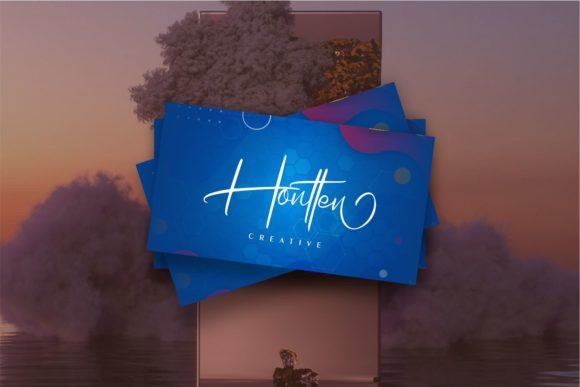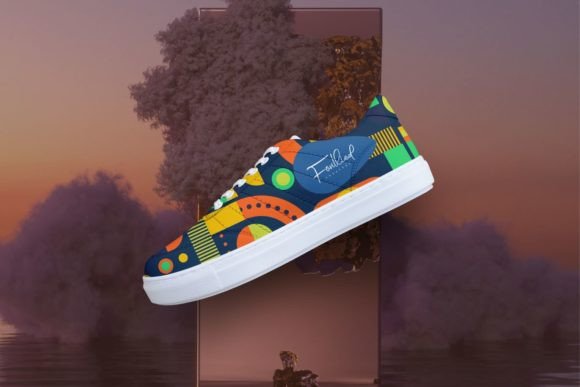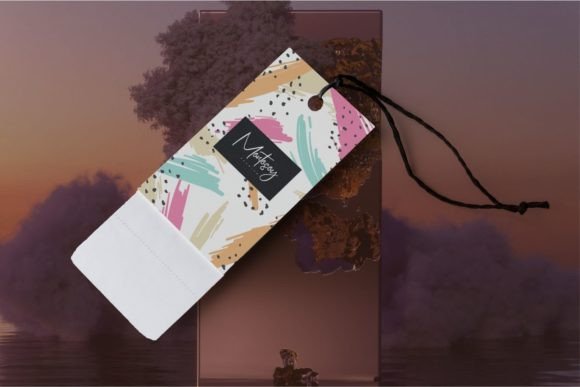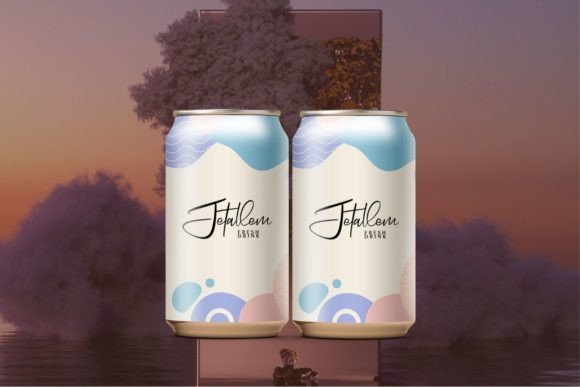
A Sophisticated Calligraphy Script for Creative Projects
Bettnode Font is an exquisite modern script font that showcases a sophisticated calligraphy style. With its elegant and graceful letterforms, this font is perfect for various design projects, including invitations, greeting cards, branding materials, business cards, quotes, posters, and more. Bettnode Font adds luxury and refinement to your designs.
Perfect for Invitations and Special Occasions
When it comes to invitations, Bettnode Font adds a touch of elegance and refinement. Its flowing and intricate strokes create a sense of luxury and sophistication, making your invitations truly captivating. Whether you’re designing wedding invitations, party invites, or event announcements, Bettnode will elevate the overall look and feel of your designs.
Ideal for Greeting Cards
Greeting cards designed with Bettnode Font become visually stunning works of art. The font’s calligraphic style adds beauty and charm to your heartfelt messages. Whether it’s a birthday card, thank-you note, or special occasion card, Bettnode adds a touch of elegance and grace, making your greetings even more memorable.
Perfect for Branding and Business Materials
Branding materials and business cards benefit from Bettnode’s modern and stylish appearance. The font’s unique letterforms and intricate details create a distinctive and eye-catching visual identity. Whether you’re designing a logo, business card, or other branding materials, Bettnode helps communicate professionalism and creativity, ensuring your brand stands out.
Bring Quotes and Posters to Life
Quotes and posters come to life with Bettnode Font‘s calligraphy style. The font’s graceful curves and artistic flair make your quotes and typography stand out. It adds beauty and sophistication to your designs, enhancing the impact of your message and capturing the attention of viewers.
Elevate Your Designs with Bettnode Font
In summary, Bettnode Font is a modern script font with a captivating calligraphy style that enhances a wide range of design projects. From invitations and greeting cards to branding materials, business cards, quotes, posters, and more, Bettnode adds an element of elegance, refinement, and uniqueness to your designs. Its exquisite letterforms and flowing style make it an excellent choice for creating visually stunning and memorable designs.